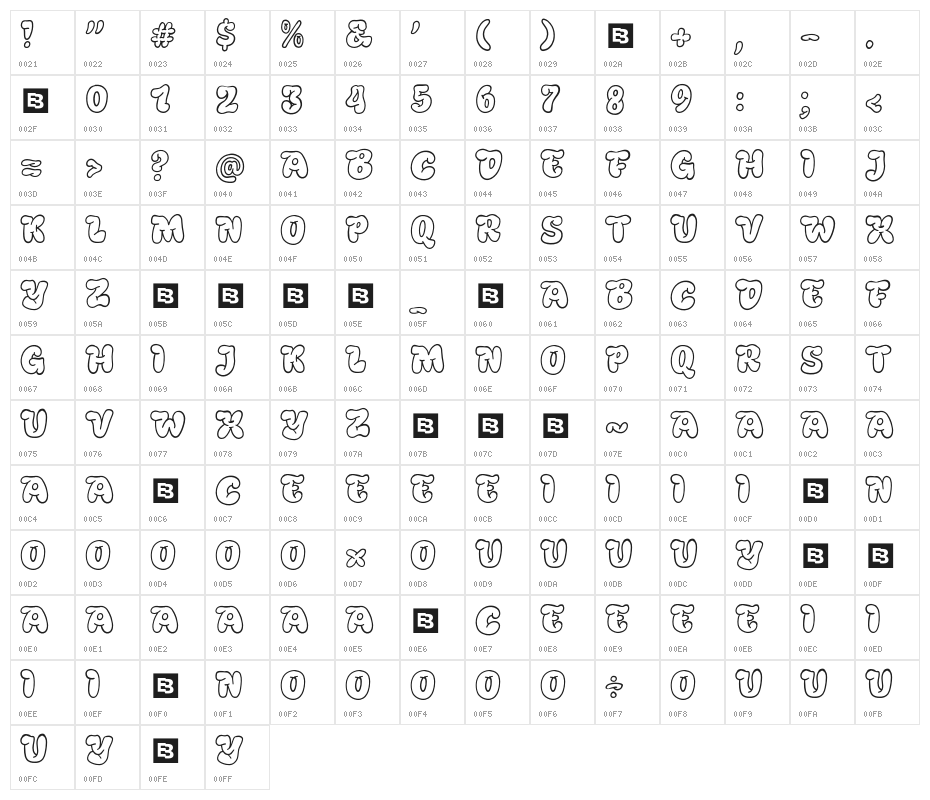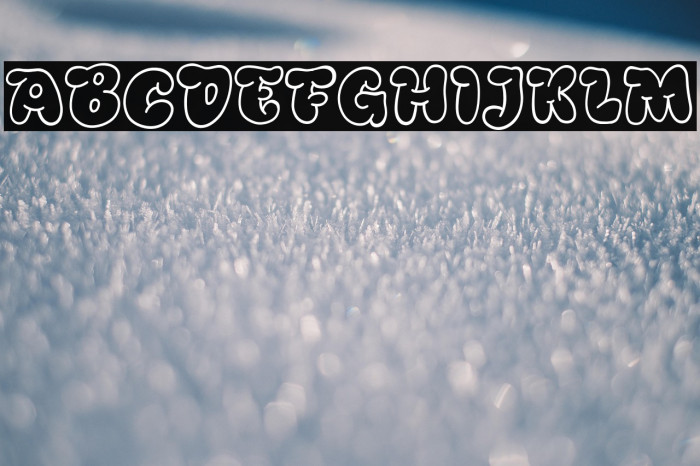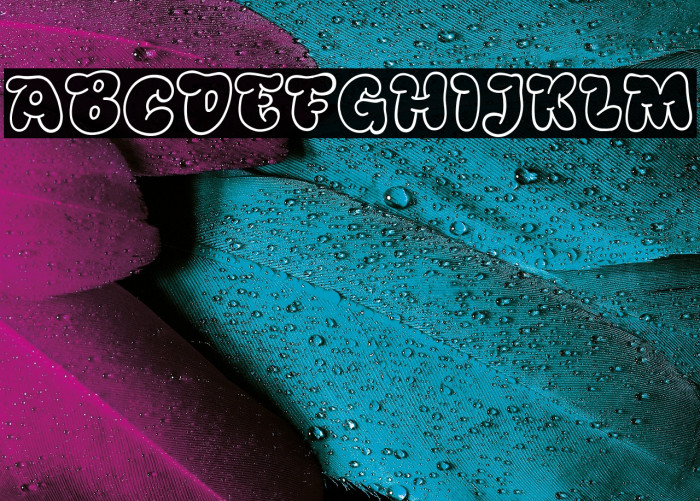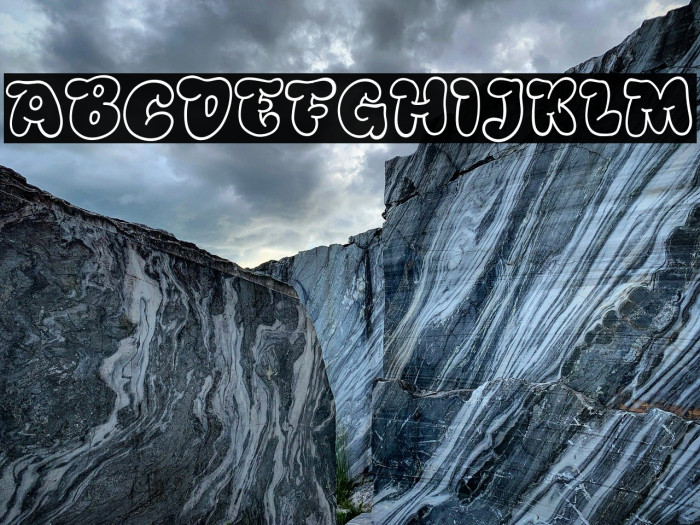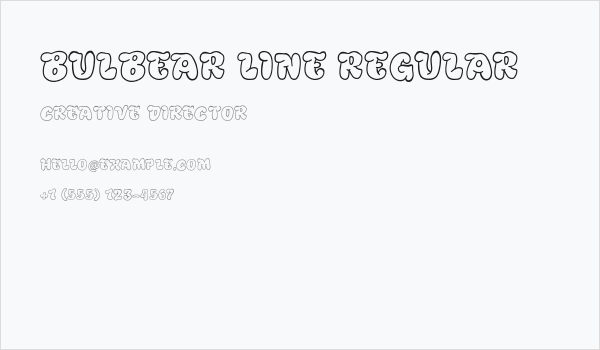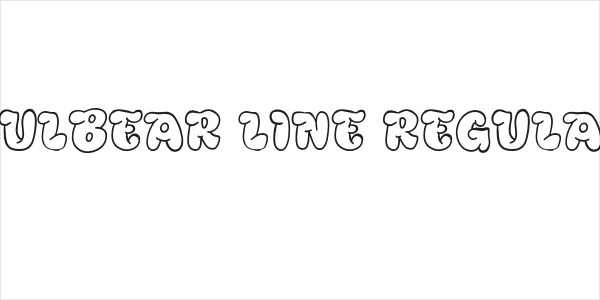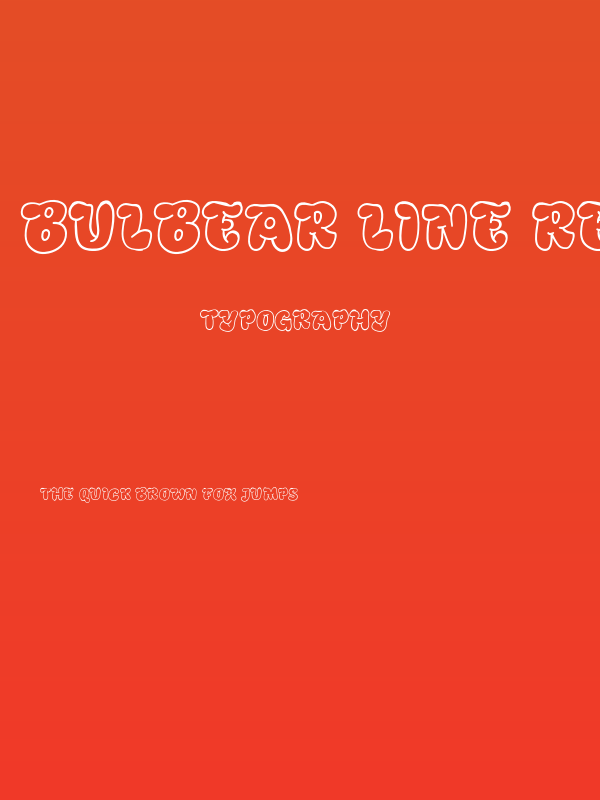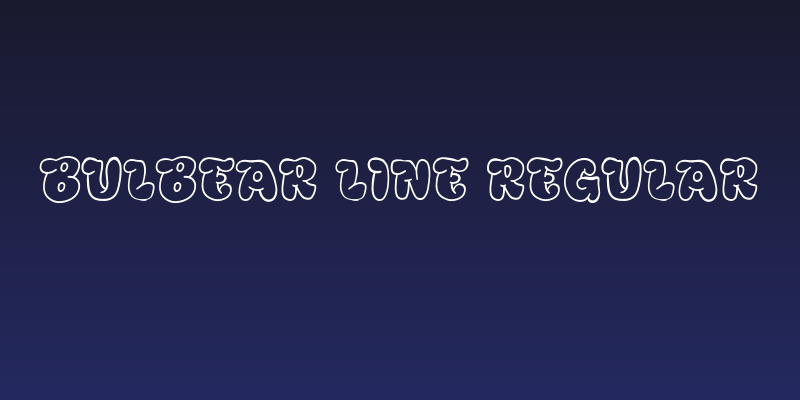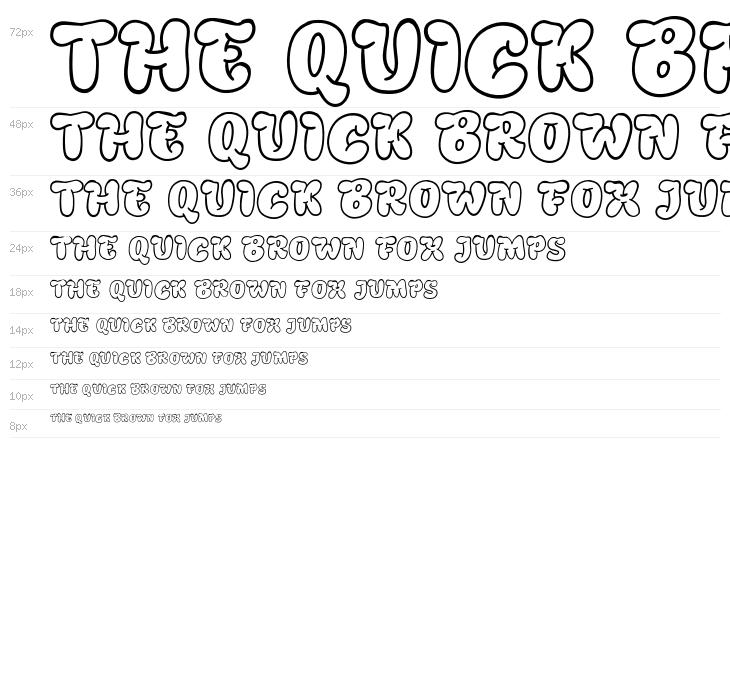
Bulbear Line Regular Font
Bulbear Line Regular Description
A playful, outlined decorative font with rounded, bubble-like characters, suitable for fun and informal designs.
| Overall Style | Playful, Fun |
| Proposed Projects | Children's books, party invitations, playful branding. |